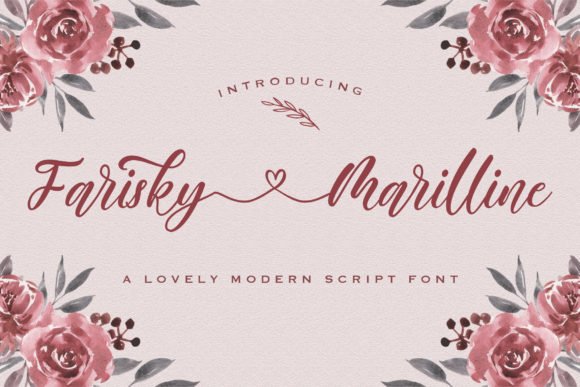
Discover the Art of Elegant Typography with Farisky Marlline Font
As I sat at my desk, staring at a blank sheet of paper, I knew exactly what I needed to bring my design to life – a font that would convey the perfect blend of romance and sophistication. That’s when I stumbled upon the beautiful Farisky Marlline Font, and I was instantly captivated by its flowing script style.
This stunning font is perfect for designers who want to add a touch of personality to their work. Whether you’re creating wedding invitations, thank you cards, or logos, Farisky Marlline Font is sure to impress. With its PUA encoded features, accessing all the glyphs and swashes is a breeze, giving you the freedom to experiment and create unique designs.
- Unique Characteristics: Hand-drawn design with elegant, cursive script and a touch of whimsy, suitable for creative and artistic projects
Farisky Marlline Font Review
As a designer, I was excited to dive into the Farisky Marlline font and see what it had to offer. Overall, I found it to be a unique and intriguing choice for certain projects.
- The font’s playful, handwritten feel makes it perfect for creative and artistic projects.
- The character set is extensive, making it easy to use for both body text and headings.
- The font is highly customizable, allowing for easy tweaking of weights, styles, and sizes.
- It’s a great choice for social media graphics, advertisements, and other marketing materials where a personal touch is needed.
- The font’s lack of legibility in small text sizes can be a major issue for body text.
- The font’s high x-height can make it difficult to pair with other fonts that have a more traditional x-height.
- Some users may find the font’s irregularities to be distracting or unprofessional.
Overall, I think the Farisky Marlline font is a great choice for designers who want to add a personal touch to their projects. While it may have some limitations, its unique character and customizability make it a valuable addition to any design toolkit.
Farisky Marlline Font is commonly used in:
– Creative projects, such as infographics and posters.
– Branding materials, such as logos and business cards.
– Digital designs, such as website headers and social media graphics.